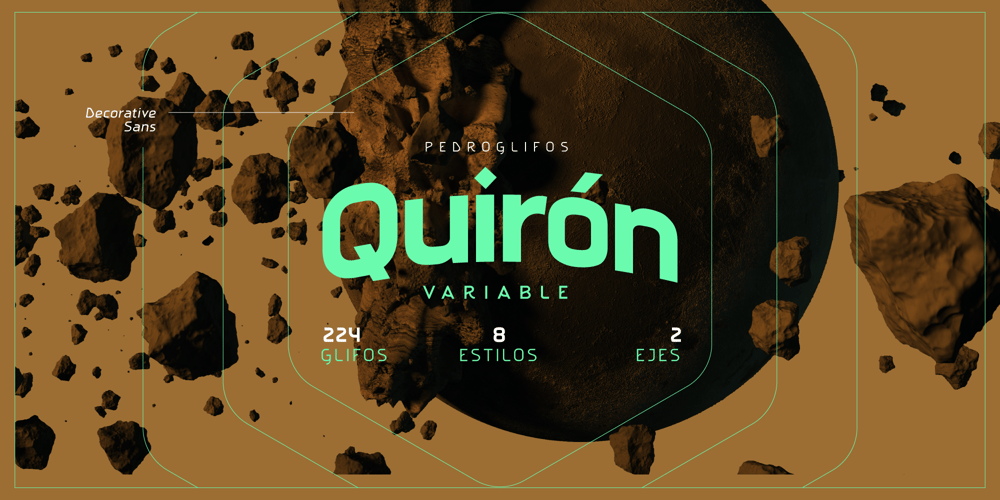
Quiron Font Family was designed by Pedro Medina-Leandry and published by Pedroglifos. Quiron contains 9 styles and family package options. A modern square sans serif that dares to be different. There’s a tech-spacey air to Quiron, it will suit all modern display needs. It’s low contrast and minimalist nature grants its design an avant-garde look & feel, ready to be part of sophisticated packaging or galactic exploration video game title.